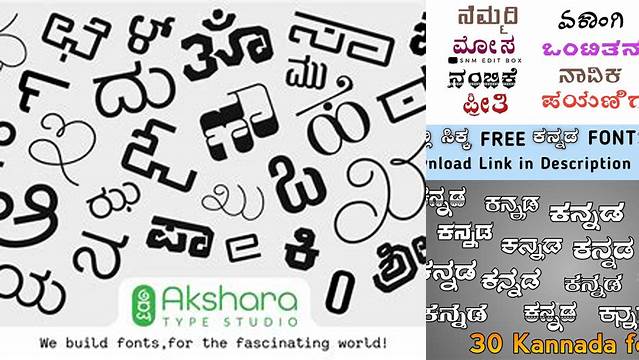
Kannada Fonts: A Guide To Typography In Bandipur
Hey guys! Ever wondered about the beautiful scripts and fonts that bring the Kannada language to life, especially when you see them showcased in places like Bandipur? Well, buckle up, because we're about to dive deep into the world of Kannada fonts, their significance, and how they connect to the cultural richness of regions like Bandipur. This article aims to provide you with a comprehensive understanding of Kannada fonts, exploring their history, types, usage, and relevance in the digital age. From classic styles to modern interpretations, we'll uncover the nuances that make each font unique and explore how they contribute to preserving and promoting the Kannada language and culture.
1. History of Kannada Script
The history of the Kannada script is a long and fascinating journey. Its evolution is intertwined with the broader history of South India. The Kannada script, like many other South Indian scripts, evolved from the Brahmi script. Specifically, it's believed to have descended from the Kadamba script, which was used during the Kadamba dynasty (4th-6th centuries CE). This early form gradually evolved into what we recognize today as the Old Kannada script. The Kadamba script itself was derived from a southern variant of Brahmi.
Early Inscriptions
Early inscriptions in Kannada are found on stone and copper plates, dating back to the 5th century CE. These inscriptions provide valuable insights into the language and script of the time. Over the centuries, the script underwent several changes, influenced by various dynasties and regional variations. The Western Ganga dynasty (4th-11th centuries CE) and the Chalukya dynasty (6th-12th centuries CE) were particularly influential in shaping the Kannada script. The script became more standardized during the Vijayanagara Empire (14th-17th centuries CE), which promoted Kannada language and literature. The script's development reflects the rich cultural and political history of Karnataka. The script's evolution is a testament to the dynamic nature of language and writing systems. As you explore the history of Kannada script, you appreciate the depth and richness of its heritage. It's amazing how much history is embedded in the very letters we use today. Isn't that something?
2. Types of Kannada Fonts
When we talk about Kannada fonts, we're not just talking about one single style. Oh no, there's a whole universe of different types of Kannada fonts out there! Each one has its own unique characteristics and is suited for different purposes. Let's break down some of the main categories.
Serif fonts, in general, are characterized by the small decorative strokes (called serifs) at the end of letter strokes. In Kannada, serif fonts are often used in traditional printing and for longer texts, as they are considered easy to read. These fonts evoke a sense of formality and tradition. Popular Kannada serif fonts include styles that mimic the elegance of classical calligraphy. Serif fonts provide a sense of structure and clarity, making them ideal for formal documents. The serifs guide the eye along the text, enhancing readability and reducing eye strain. Serif fonts are particularly well-suited for printed materials, where their fine details can be fully appreciated. When you want to convey a sense of history and trustworthiness, serif fonts are an excellent choice. They bring a touch of sophistication to your writing. It's like adding a bit of old-world charm to your words!
Sans-serif fonts, on the other hand, lack these decorative strokes. They have a cleaner, more modern look. These are often preferred for digital displays and shorter texts. The simplicity of sans-serif fonts makes them highly legible on screens. Modern Kannada sans-serif fonts are designed for clarity and ease of reading in digital environments. They are often used in websites, apps, and other digital media. Sans-serif fonts offer a contemporary feel, making them suitable for modern designs. The absence of serifs gives the letters a clean, uncluttered appearance. This simplicity enhances readability, especially at smaller sizes. Sans-serif fonts are a great choice for headlines, captions, and other short blocks of text. They provide a fresh, updated look to your content. When you want to create a sleek and modern impression, sans-serif fonts are the way to go. They bring a sense of innovation and efficiency to your message.
Decorative Fonts
Decorative fonts are used for specific design purposes where readability is secondary to visual appeal. These fonts often incorporate unique design elements. These fonts add a creative flair to designs. Decorative fonts are typically used in logos, posters, and other visual elements. They are designed to catch the eye and create a memorable impression. Decorative fonts can be inspired by various sources, including traditional art, calligraphy, and modern design trends. They offer a wide range of styles, from whimsical and playful to bold and dramatic. Decorative fonts are a great way to express creativity and individuality. However, it's important to use them sparingly to avoid overwhelming the viewer. When you want to make a statement and add personality to your design, decorative fonts are an excellent tool. They bring a sense of artistry and uniqueness to your work. Decorative fonts can transform ordinary text into something extraordinary. Just be sure to use them judiciously!
3. Popular Kannada Fonts Used in Bandipur
Bandipur, being a region rich in culture and heritage, often showcases Kannada fonts in various forms – from signage to printed materials. Some popular fonts you might spot around Bandipur include: Nudi, Tunga, and Mallige. Each of these fonts has its own unique style and is used in different contexts to enhance the visual appeal and readability of Kannada text. By understanding the characteristics of these fonts, you can appreciate the thought and care that goes into selecting the right typeface for different applications in Bandipur.
Nudi Font
Nudi is one of the most widely used Kannada fonts, known for its readability and versatility. It's often used in newspapers, books, and websites. The font is designed to be clear and easy to read, even at small sizes. Nudi has become a standard font for Kannada text, ensuring consistency across different platforms. Its widespread adoption makes it a reliable choice for various applications. Nudi offers a balanced and neutral appearance, making it suitable for both formal and informal contexts. The font's clean lines and well-defined characters contribute to its legibility. Nudi is a favorite among publishers and designers for its practicality and aesthetic appeal. When you need a font that is both functional and visually pleasing, Nudi is an excellent option. It has stood the test of time and remains a popular choice for Kannada text. Its adaptability and ease of use make it a staple in the Kannada typography landscape. Nudi is like that reliable friend you can always count on.
Tunga Font
Tunga is another popular Kannada font, often used for its elegant and slightly more stylized appearance. It's a great choice for headings and titles. Tunga adds a touch of sophistication to designs. The font's unique character shapes make it stand out. Tunga is suitable for both print and digital media. Its versatility allows it to be used in a variety of applications. Tunga's distinctiveness makes it a popular choice for branding and advertising. The font's elegant curves and refined details enhance its visual appeal. Tunga is a favorite among designers who want to add a touch of class to their work. When you need a font that is both stylish and readable, Tunga is an excellent option. It brings a sense of sophistication and elegance to your designs. Its unique character shapes make it a memorable choice. Tunga is like that stylish friend who always looks put-together.
Mallige Font
Mallige is a Kannada font known for its decorative and artistic style. It's often used in creative designs and artistic projects. The font is inspired by traditional Kannada calligraphy. Mallige adds a touch of cultural richness to designs. The font's intricate details and unique character shapes make it stand out. Mallige is suitable for creating visually appealing designs that showcase the beauty of Kannada script. Its artistic flair makes it a popular choice for invitations, posters, and other creative projects. Mallige is a favorite among artists and designers who want to add a touch of tradition to their work. When you need a font that is both decorative and meaningful, Mallige is an excellent option. It brings a sense of artistry and cultural heritage to your designs. Its intricate details make it a memorable choice. Mallige is like that artistic friend who always has a unique perspective.
4. How to Choose the Right Kannada Font
Choosing the right Kannada font can make or break your design. Here’s what to consider: Readability, Purpose, and Tone. Keep these factors in mind to make the best choice for your specific project.
Readability Considerations
Readability is paramount. If your text isn't easy to read, people won't bother. Choose a font that is clear and legible, especially for longer texts. Consider the size of the text and the medium it will be displayed on. Ensure that the font is readable on both print and digital media. Pay attention to the spacing between letters and lines to enhance readability. A well-designed font will have consistent character shapes and clear distinctions between letters. Test the font with different font sizes and screen resolutions to ensure optimal readability. Consider the target audience and their reading preferences when selecting a font. A font that is easy to read will keep your audience engaged and prevent eye strain. Readability is the foundation of effective communication. When you prioritize readability, you make it easier for people to understand your message. It's like making sure everyone can hear you clearly.
Purpose of the Text
What's the text for? A formal document will need a different font than a poster for a local event. Select a font that aligns with the purpose of your text. Consider the context in which the text will be used. A formal document may require a traditional serif font, while a poster may benefit from a more decorative font. Ensure that the font is appropriate for the intended audience and the message you want to convey. Choose a font that complements the overall design and enhances the effectiveness of your communication. The purpose of the text should guide your font selection. A font that matches the purpose of the text will enhance its impact and clarity. It's like choosing the right tool for the job.
Tone and Style
The font should match the tone and style of your content. A playful font for a children's book, a serious font for a legal document. Choose a font that reflects the tone and style of your message. Consider the emotions and impressions you want to evoke with your text. A playful font can add a sense of fun and whimsy, while a serious font can convey authority and professionalism. Ensure that the font aligns with the overall brand identity and design aesthetic. The tone and style of your text should be reflected in your font choice. A font that matches the tone and style of your message will enhance its impact and resonance. It's like choosing the right outfit for the occasion. When you match the font to the tone, your message is more impactful.
5. Digital Kannada Typography
In today's digital age, Kannada fonts have evolved to meet the demands of online platforms. Digital Kannada typography focuses on optimizing fonts for screen display, ensuring readability and aesthetic appeal on various devices. This includes designing fonts that render well at different sizes and resolutions, as well as incorporating features that enhance the user experience. Digital Kannada typography plays a crucial role in making Kannada content accessible and engaging online.
Web Fonts
Web fonts are fonts that are specifically designed for use on websites. They can be easily embedded into web pages using CSS. Using web fonts ensures that your website displays Kannada text correctly, regardless of the user's device or operating system. Popular web font services like Google Fonts offer a variety of Kannada fonts that are optimized for web use. Web fonts improve the user experience by providing consistent and visually appealing typography. They also enhance website performance by reducing the need for images of text. When choosing web fonts, consider factors such as readability, loading speed, and browser compatibility. Web fonts are an essential tool for creating a professional and accessible online presence. They ensure that your Kannada content is displayed beautifully and consistently across the web. It's like giving your website a stylish makeover.
Font Rendering
Font rendering refers to the process of displaying fonts on a screen. Different operating systems and browsers may render fonts differently, which can affect the appearance of Kannada text. Optimizing font rendering ensures that Kannada fonts are displayed clearly and accurately on all devices. Techniques such as font hinting and anti-aliasing can improve font rendering quality. Proper font rendering is crucial for ensuring readability and preventing distortion of Kannada characters. When designing Kannada websites and applications, it's important to test font rendering on different platforms. Consistent font rendering enhances the user experience and ensures that your content looks its best. It's like making sure everyone can see your message clearly, no matter what device they're using.
6. Preserving Kannada Script
Kannada fonts play a vital role in preserving the Kannada script and language. By creating and using high-quality fonts, we can ensure that Kannada remains a vibrant and accessible language for future generations. Preserving the Kannada script involves promoting its use in education, literature, and digital media. It also requires supporting the development of new and innovative Kannada fonts that meet the evolving needs of users. Preserving Kannada script is essential for maintaining cultural identity and heritage. It ensures that the Kannada language continues to thrive in a globalized world. It's like passing down a precious heirloom to future generations.
7. Future Trends in Kannada Typography
The future of Kannada typography looks promising, with several emerging trends shaping the landscape. These include the development of variable fonts, the integration of AI in font design, and the growing demand for localized fonts. Variable fonts allow for greater flexibility and customization, while AI can assist in creating more efficient and aesthetically pleasing fonts. Localized fonts cater to the specific needs and preferences of Kannada speakers, ensuring that the script remains relevant and accessible. These trends will drive innovation in Kannada typography and enhance the user experience.
So there you have it! A comprehensive look at Kannada fonts, their history, types, usage, and future trends. Whether you're designing a website, creating a poster, or simply interested in the beauty of the Kannada script, understanding Kannada fonts is essential. Keep exploring, keep creating, and keep celebrating the richness of the Kannada language! Remember, every font tells a story. Let's make sure the story of Kannada continues to be told beautifully and effectively.
8. Kannada Calligraphy and Fonts
Kannada calligraphy, an ancient art form, has significantly influenced the development of Kannada fonts. Calligraphy emphasizes the artistic and expressive aspects of writing, shaping the aesthetic qualities of letterforms. Traditional Kannada calligraphy involves intricate brushstrokes and a deep understanding of script aesthetics. Many modern Kannada fonts draw inspiration from calligraphic styles, incorporating elements of elegance and fluidity. The fusion of calligraphy and font design results in visually appealing and culturally rich typefaces. Calligraphy enhances the artistic value of Kannada script. It's like bringing a touch of artistry to your writing.
9. Open Source Kannada Fonts
Open source Kannada fonts are freely available for use and modification. These fonts are developed collaboratively by communities of designers and developers. Open source fonts promote accessibility and innovation in Kannada typography. They allow users to customize fonts to meet their specific needs. Open source fonts encourage the sharing and improvement of typographic resources. They often come with licenses that permit commercial use. Open source fonts are a valuable resource for designers, educators, and anyone interested in Kannada typography. They promote collaboration and democratize access to quality fonts. It's like having a community of experts helping you create beautiful designs.
10. Kannada Fonts for Print Media
Kannada fonts designed for print media prioritize readability and clarity. These fonts are optimized for high-resolution printing. They often feature serifs to guide the eye and enhance legibility. Print fonts are designed to look crisp and clear on paper. They are commonly used in books, newspapers, magazines, and other printed materials. Choosing the right font for print media is crucial for ensuring a positive reading experience. Print fonts are like the foundation of a well-designed book.
11. Kannada Fonts for Digital Screens
Kannada fonts for digital screens are designed to display clearly on computers, smartphones, and tablets. These fonts often use sans-serif designs for better readability on screens. They are optimized for various screen resolutions and pixel densities. Digital fonts are essential for websites, apps, e-books, and other digital media. Clear and legible digital fonts improve the user experience. Digital fonts are like making sure everyone can read your message on their phone.
12. Commercial Kannada Fonts
Commercial Kannada fonts are professionally designed fonts that are sold for profit. These fonts often offer a wide range of styles, weights, and features. Commercial fonts are created by experienced type designers. They typically come with licenses that specify how the font can be used. Commercial fonts are a valuable investment for businesses and designers who require high-quality typography. They ensure a consistent and professional look across all media. Commercial fonts are like having a custom-tailored suit for your brand.
13. Free Kannada Fonts
Free Kannada fonts are available for download and use at no cost. These fonts can be a great option for personal projects and small businesses. Free fonts vary in quality and features. It's important to choose free fonts carefully to ensure they meet your needs. Many free fonts are released under open source licenses. Free fonts provide an accessible way to experiment with Kannada typography. They can be a great starting point for learning about font design. Free fonts are like finding a hidden gem in a thrift store.
14. Unicode Compatibility of Kannada Fonts
Unicode compatibility is essential for Kannada fonts to display correctly on all devices and platforms. Unicode is a universal character encoding standard that supports all languages. Kannada fonts must adhere to Unicode standards to ensure proper rendering of characters. Unicode compatibility ensures that Kannada text can be shared and viewed without errors. Unicode is like the universal language of computers.
15. Font Licensing for Kannada Fonts
Font licensing specifies the terms of use for Kannada fonts. It defines how the font can be used, modified, and distributed. Font licenses protect the rights of the font designer. Understanding font licensing is crucial for avoiding legal issues. Common types of font licenses include commercial licenses, open source licenses, and freeware licenses. Font licensing is like knowing the rules of the road for using fonts.
16. Variable Fonts in Kannada
Variable fonts allow for dynamic adjustments to font characteristics, such as weight, width, and style. These fonts offer greater flexibility and customization. Variable fonts can adapt to different screen sizes and resolutions. They can improve website performance by reducing file sizes. Variable fonts are a promising technology for Kannada typography. Variable fonts are like having a font that can change its shape.
17. The Impact of Kannada Fonts on Branding
Kannada fonts play a crucial role in creating a strong brand identity. The right font can convey the personality and values of a brand. Consistent use of fonts reinforces brand recognition. Fonts can help differentiate a brand from its competitors. Kannada fonts are an important element of visual branding. Fonts are like the voice of your brand.
18. Designing Your Own Kannada Font
Designing your own Kannada font is a challenging but rewarding process. It requires a deep understanding of typography and design principles. Font design software can help you create your own fonts. Designing your own font allows you to create a unique and personalized typeface. It can be a great way to express your creativity. Designing your own font is like building your own house.
19. Kannada Fonts and User Experience (UX)
Kannada fonts have a significant impact on user experience (UX). Readability and legibility are crucial for a positive UX. The right font can enhance the overall aesthetic appeal of a website or app. Fonts can improve accessibility for users with visual impairments. Kannada fonts are an important consideration in UX design. Fonts are like the furniture in a room; they affect how comfortable you feel.
20. The Role of Kannada Fonts in Education
Kannada fonts play a vital role in education by making learning materials accessible and engaging. Clear and legible fonts improve reading comprehension. The right font can motivate students to learn. Fonts are an important tool for promoting literacy. Fonts are like the building blocks of knowledge.
21. How Kannada Fonts Reflect Cultural Identity
Kannada fonts are more than just letters; they are a reflection of cultural identity. Each font carries with it a history, a tradition, and a sense of belonging. They connect us to our roots and remind us of the beauty of our language. Fonts are like a visual representation of our heritage.
22. The Importance of Legibility in Kannada Typography
Legibility is key when it comes to Kannada fonts. If people can't easily read the text, the message is lost. Choosing fonts that are clear and easy on the eyes ensures that the content is accessible to everyone. Legibility is like making sure everyone can understand what you're saying.
23. Modern vs. Traditional Kannada Fonts
Modern Kannada fonts offer a sleek and contemporary look, while traditional fonts evoke a sense of history and heritage. The choice between the two depends on the context and the message you want to convey. Modern fonts are like a breath of fresh air, while traditional fonts are like a warm embrace.
24. Best Practices for Using Kannada Fonts in Web Design
Using Kannada fonts effectively in web design requires careful consideration of factors like readability, loading speed, and cross-browser compatibility. Following best practices ensures that your website looks great and performs well for all users. Web design is like creating a beautiful and functional home for your content.
25. The Evolution of Kannada Script Over Time
The Kannada script has evolved significantly over time, adapting to new technologies and cultural influences. From ancient inscriptions to modern digital fonts, the script has undergone a fascinating transformation. The evolution of Kannada script is like watching a seed grow into a tree.
26. Finding the Perfect Kannada Font for Your Project
Finding the perfect Kannada font for your project may take some time and experimentation. Consider the purpose, tone, and style of your content, and don't be afraid to try out different options. The right font can make all the difference. Finding the perfect font is like finding the missing piece of a puzzle.
27. The Art of Pairing Kannada Fonts with Other Scripts
Pairing Kannada fonts with other scripts, such as English, can be a delicate balancing act. Choose fonts that complement each other visually and create a harmonious overall effect. Font pairing is like creating a beautiful melody.
28. Common Mistakes to Avoid When Using Kannada Fonts
There are several common mistakes to avoid when using Kannada fonts, such as choosing fonts that are difficult to read or using too many different fonts in one design. Avoiding these pitfalls will help you create professional and effective designs. Learning from mistakes is like paving the way for success.
29. Resources for Learning More About Kannada Typography
There are many valuable resources available for those who want to learn more about Kannada typography, including online tutorials, books, and workshops. Take advantage of these resources to deepen your knowledge and skills. Learning is like opening a door to new possibilities.
30. The Future of Kannada Fonts in a Digital World
The future of Kannada fonts in a digital world is bright, with new technologies and innovations constantly emerging. As digital platforms continue to evolve, Kannada typography will play an increasingly important role in preserving and promoting the language and culture. The future is like a blank canvas, waiting to be filled with creativity.